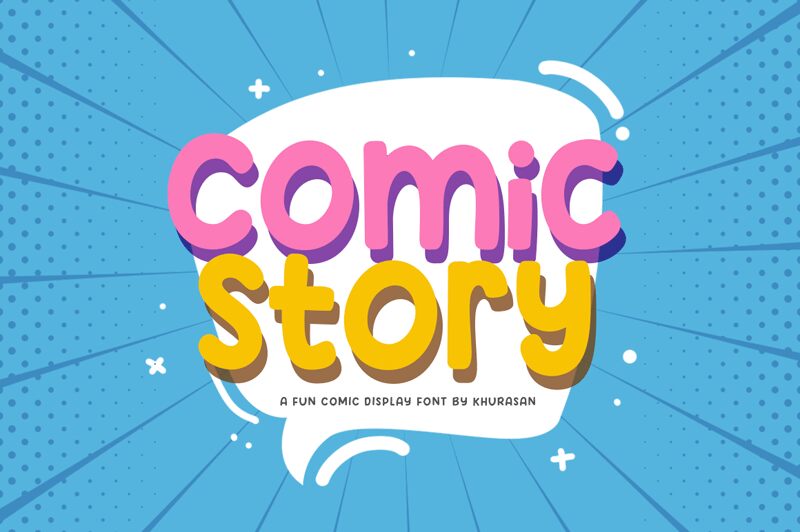
Welcome to the playful world of Comic Story, the cartoon-inspired display font designed by Khurasan. With its semi-bold weight and whimsical style, this font is perfect for injecting a dose of fun into any project. Whether you're designing a children's book cover, creating an eye-catching poster, or adding a touch of personality to your website headers, Comic Story will deliver. Its wide range of characters and unique letterforms create a lively and engaging look that's sure to grab attention. So go ahead, let your creativity run wild with Comic Story – the sky's the limit!
Comic Story